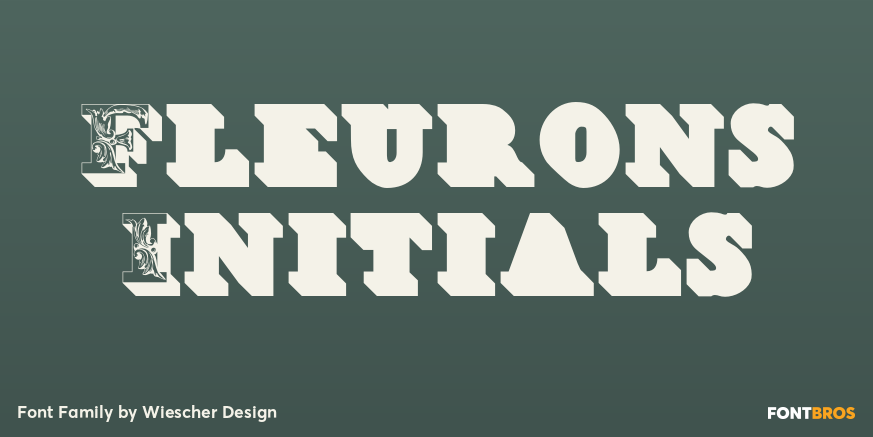
Fleurons Initials
About Fleurons Initials
Fleurons Initials is a set of elegantly decorated blocked initials, reminiscent of old Jazz and Circus Posters. I have added one set of flat underlays and one of blocked underlays, so you can easily add a little colorful touch here and there. Easy because…